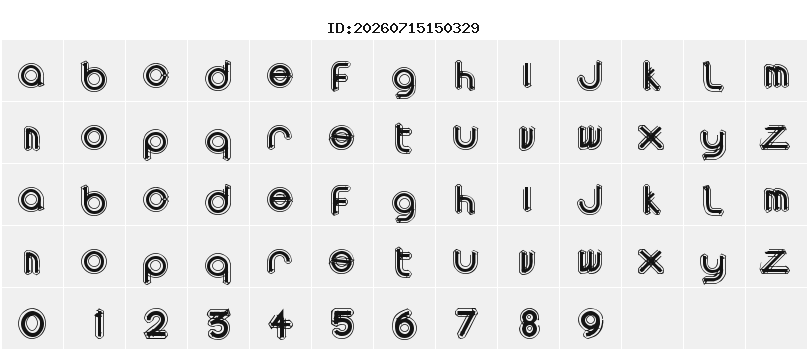
About area OUTLINEe.ttf
area OUTLINEe.ttf is a modern, elegant sans-serif font designed for ultimate readability and visual harmony. Perfect for branding, headlines, web design, and print materials.